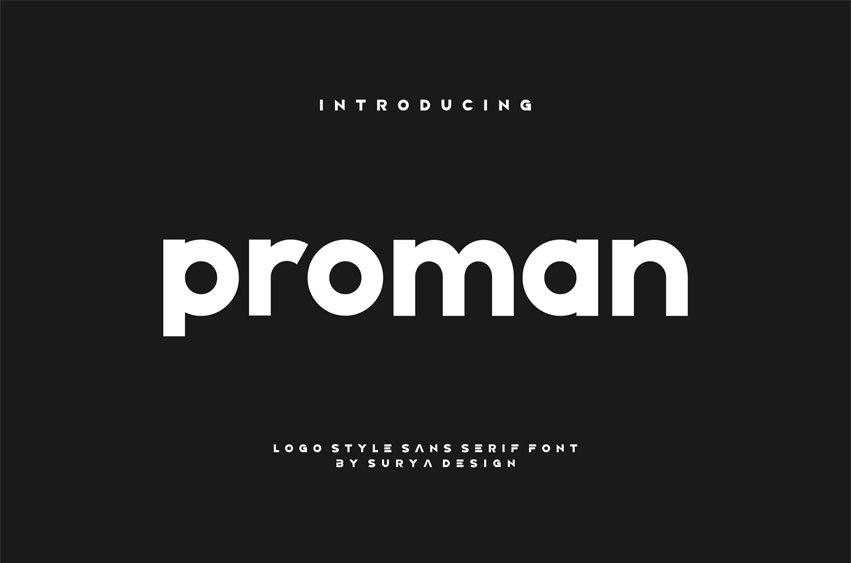
Proman Font Modern Font is a bold and authentic display font. The font is suitable for any branding project, like logos, esport, and many more.
outstanding in a wide range of contexts.